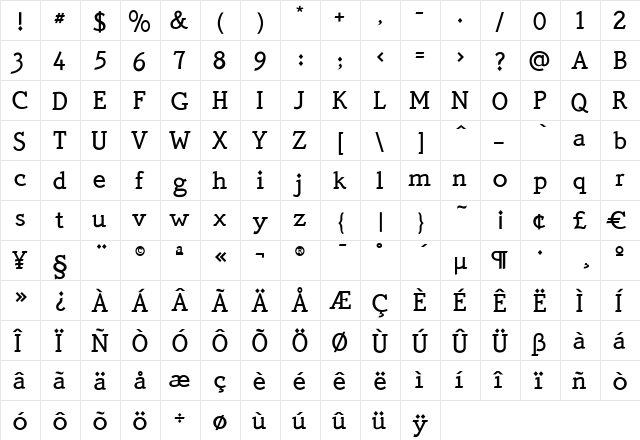
QuickType Medium Regular
| Foundry | Gert Wiescher, Wiescher-Design, Munich, Germany,https://www.wiescher-design.de |
Design Context for QuickType Medium Typeface
QuickType Medium takes a measured approach to typography — its balanced proportions and neutral character make it a reliable workhorse for both digital and print work.